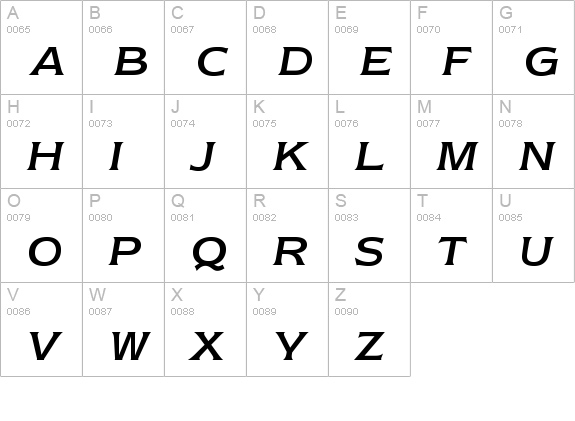
Newtext Regular Italic is the standard, neutral, italic variant in the Newtext typeface family \xE2\x80\x94 well suited to general body text, paragraphs, and standard typographic work.
The Newtext Regular Italic font is a sleek and stylish typeface that exudes elegance and sophistication. Its slanted design adds a touch of flair to any text, making it perfect for adding a touch of personality to your projects. Whether you're designing a logo, creating a web banner, or crafting a beautiful invitation, this font is sure to make a statement. Best of all, the Newtext Regular Italic font is completely free to download at FontsMarket.com. This means you can access this versatile and eye-catching typeface without breaking the bank. So why wait? Download the Newtext Regular Italic font today and elevate your designs to the next level.